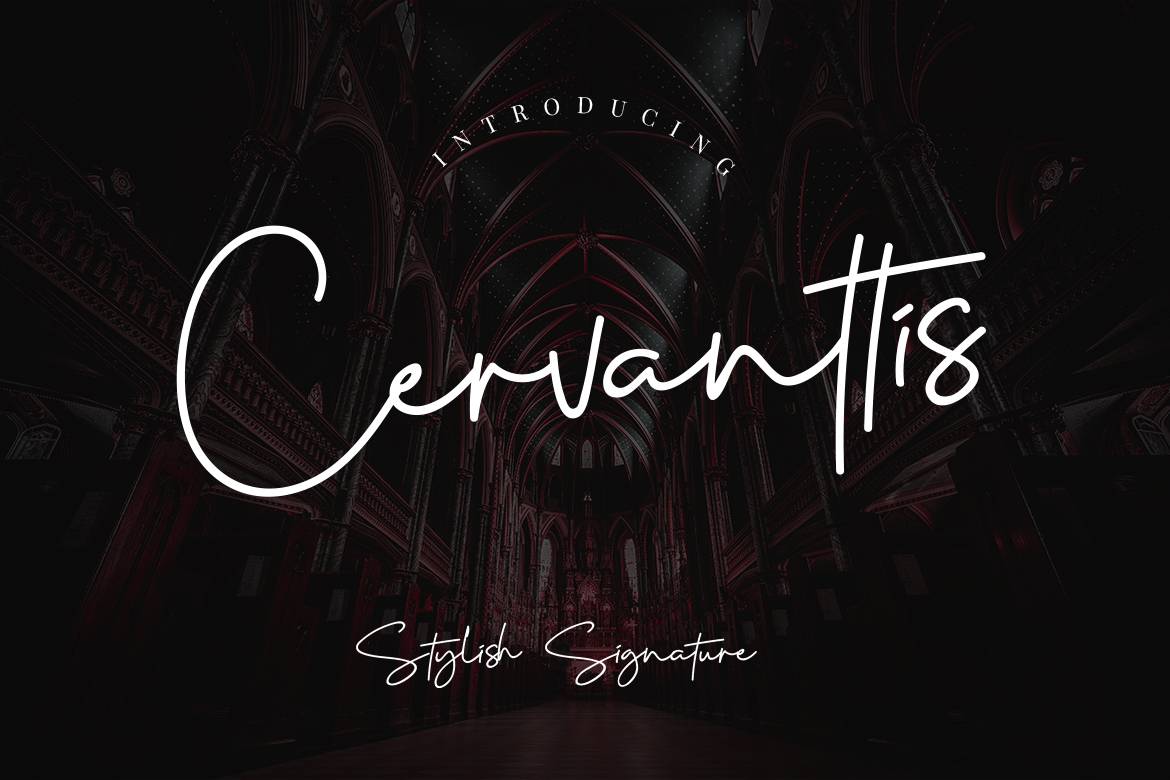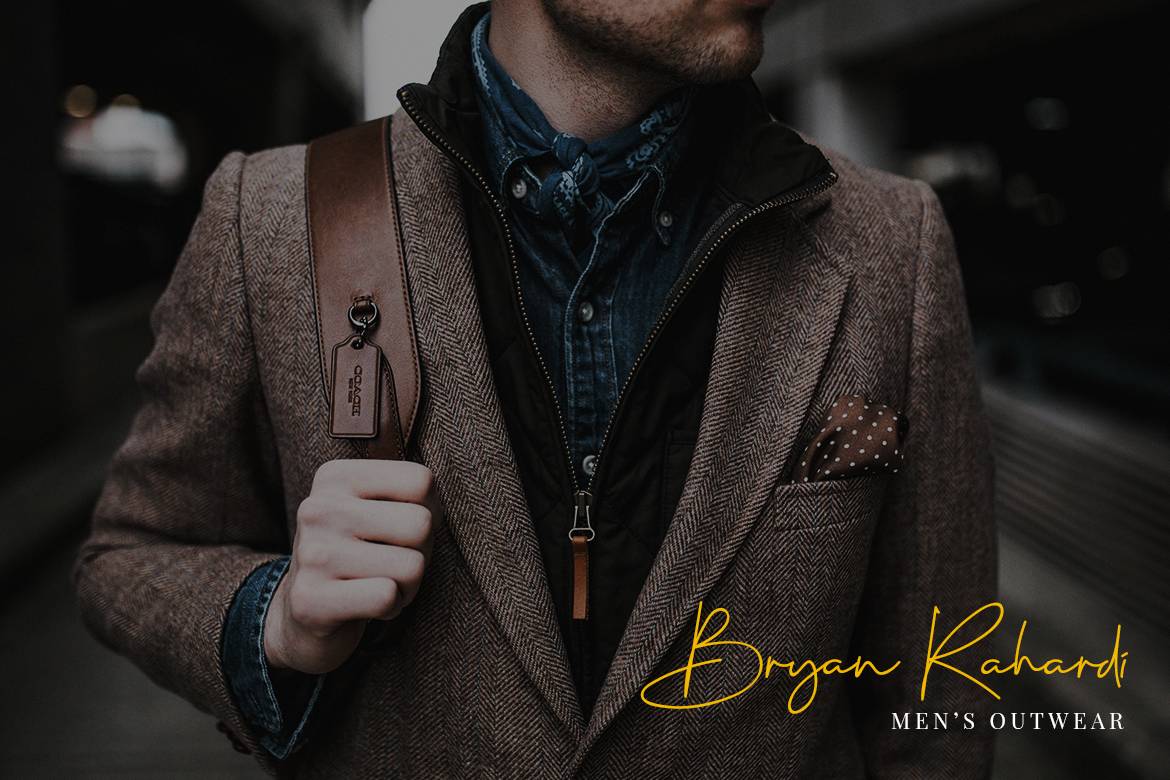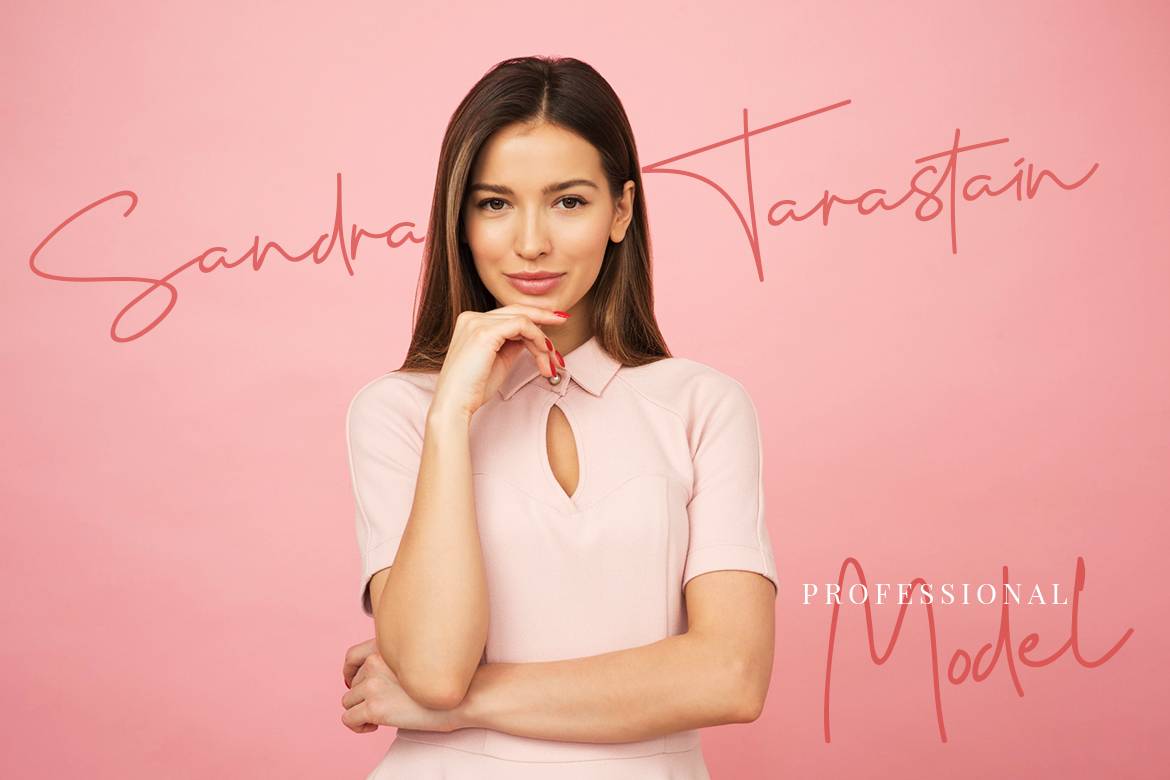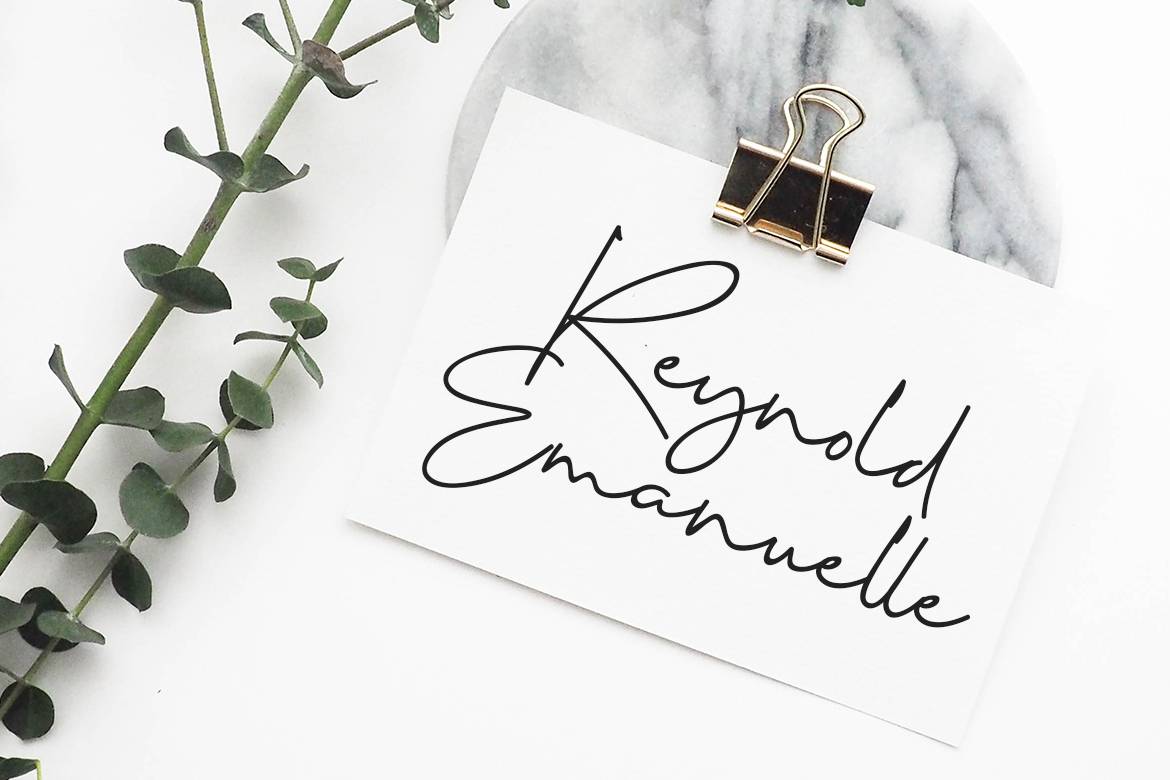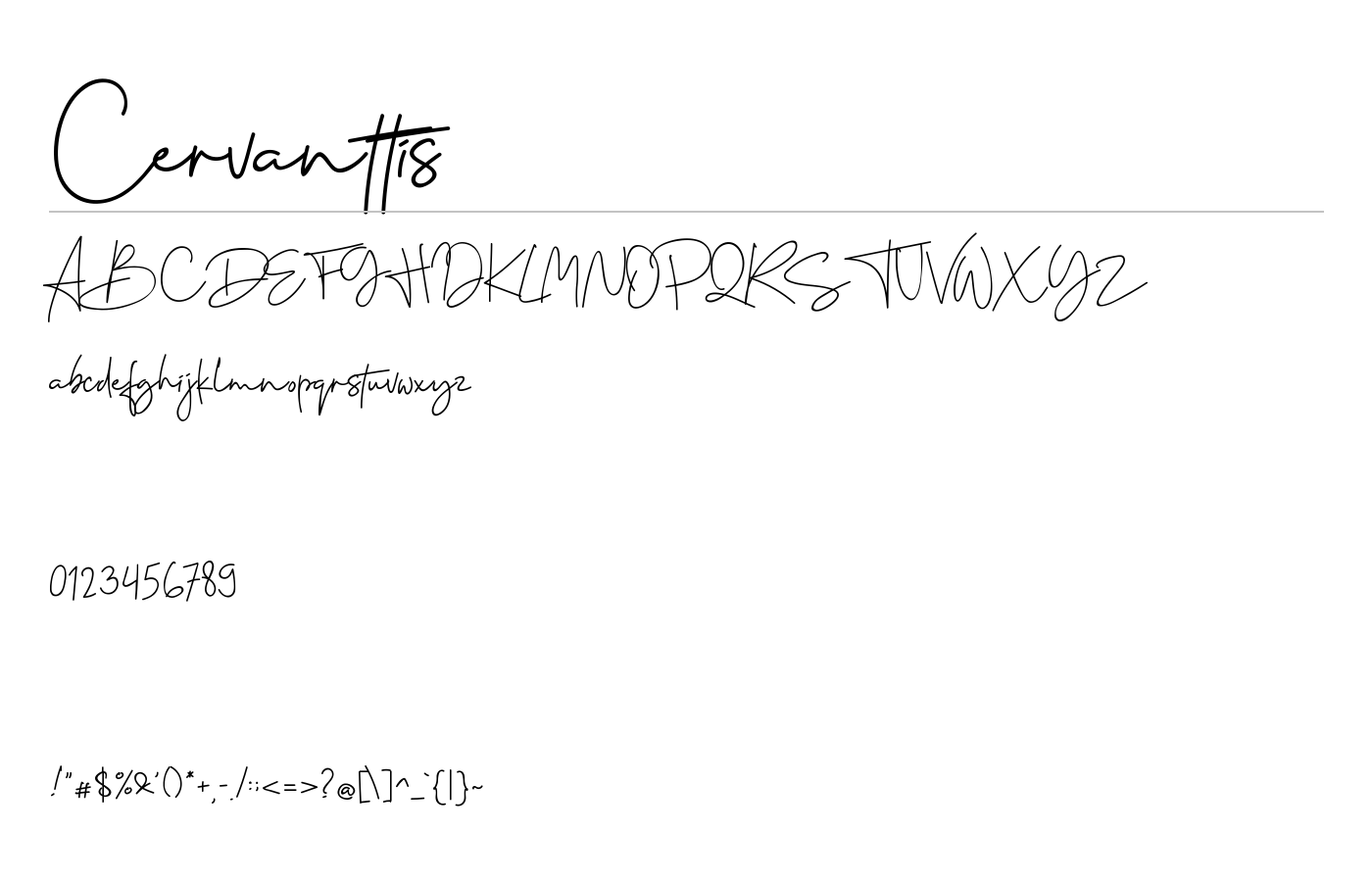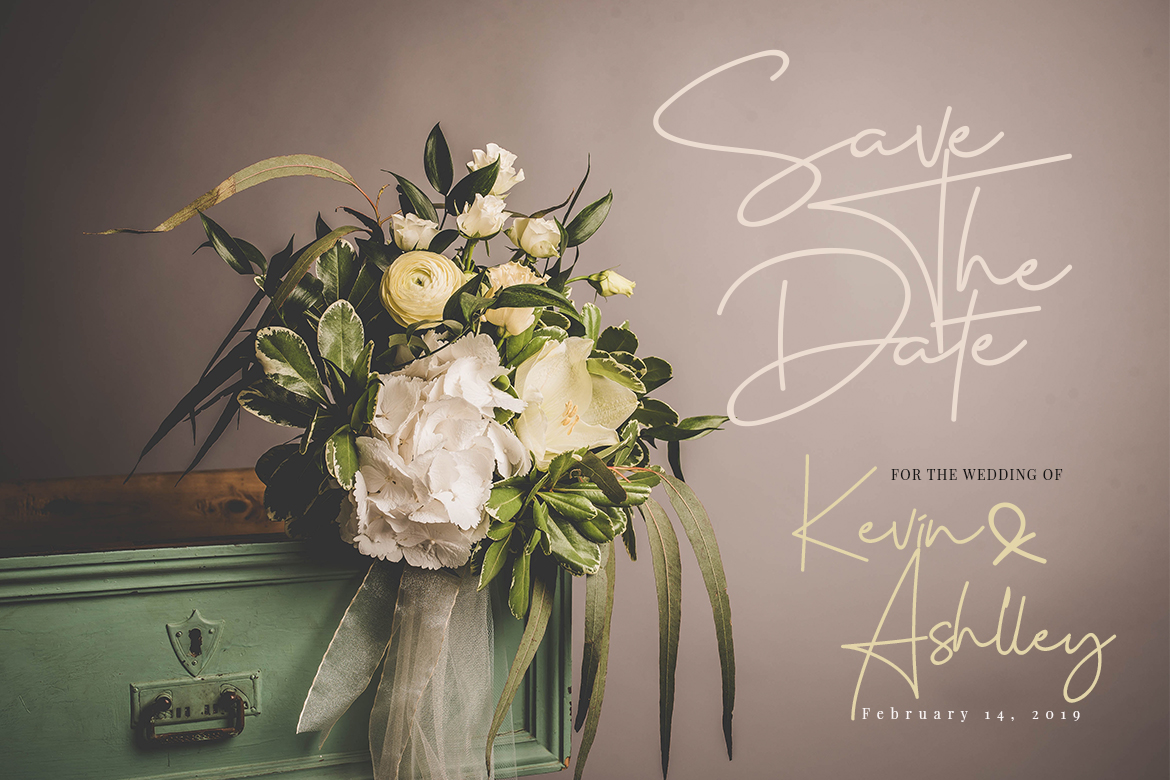
Cervanttis Signature Script is a delicate, handwritten script font with a modern, playful flair. Its thin, flowing strokes and slightly erratic letterforms give it an authentic, personal touch, perfect for adding elegance and individuality to branding, invitations, or social media graphics. This font’s airy style works best in large sizes for headlines, logos, or any creative design needing a sophisticated yet casual feel.
Cervanttis Signature Script
About Cervanttis Signature Script